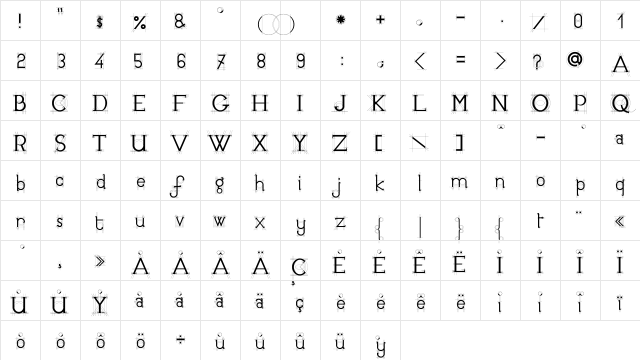
JBEtude Regular
Design Context for JBEtude
JBEtude is a composed and adaptable typeface that performs quietly and consistently across a wide range of design contexts.
Pro Tip: Use JBEtude in both headline and body roles to test its range before committing to a single application.